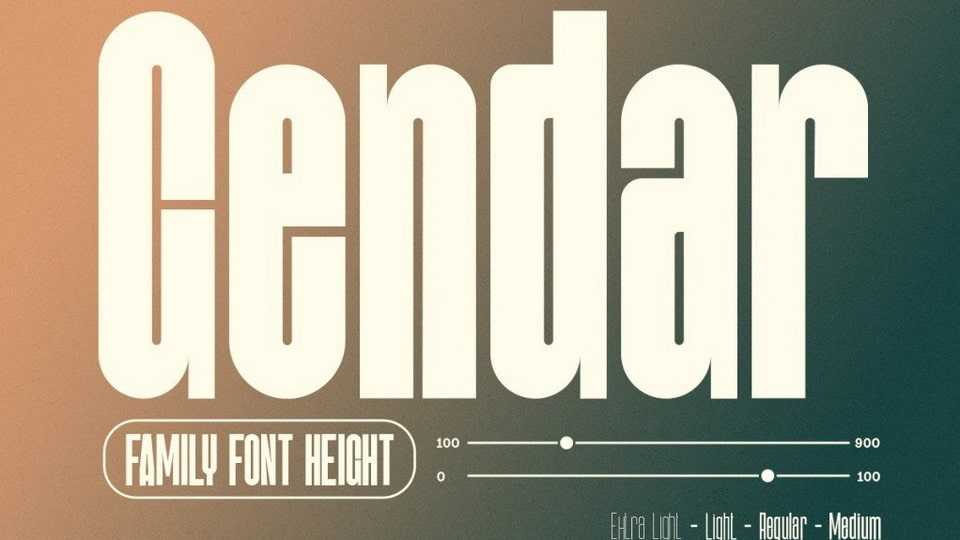
Download Gendar font, a condensed sans-serif typeface created to be used for bold titles with distinctive shapes in a display font way to make it legible for contemporary use.